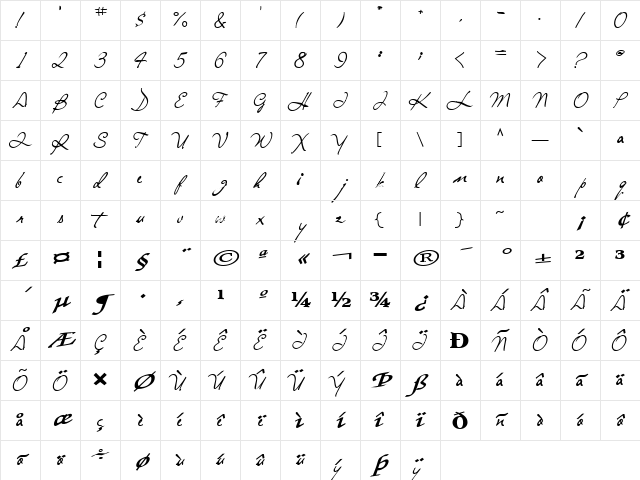
Complete SingOutNew62 Bold glyph index. Displaying only characters natively supported by SingOutNew62 Bold font.
SingOutNew62 is a composed and adaptable typeface that performs quietly and consistently across a wide range of design contexts. Its bold stroke weight gives it real presence on the page.